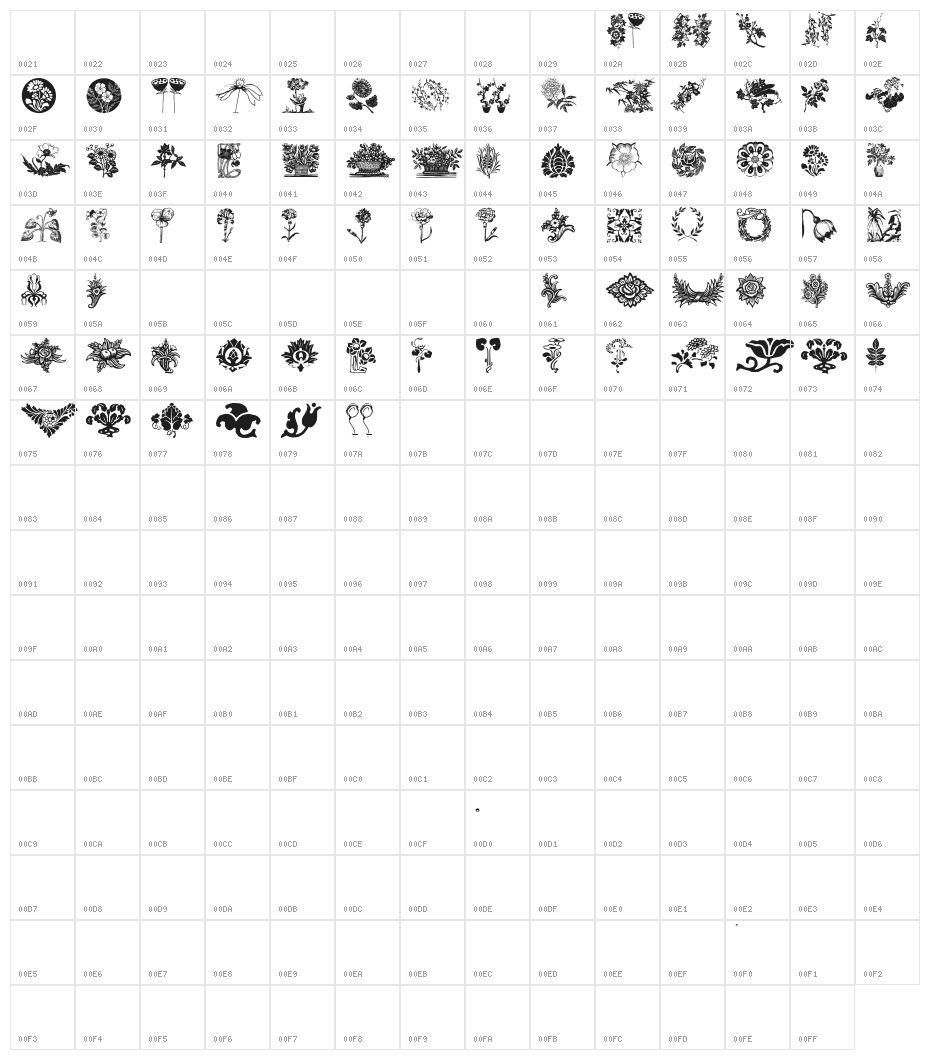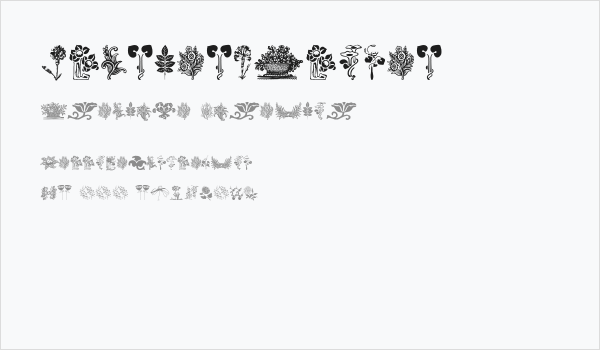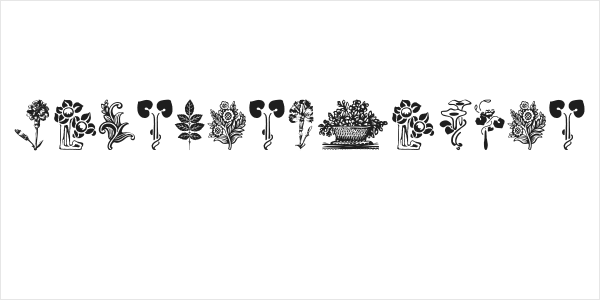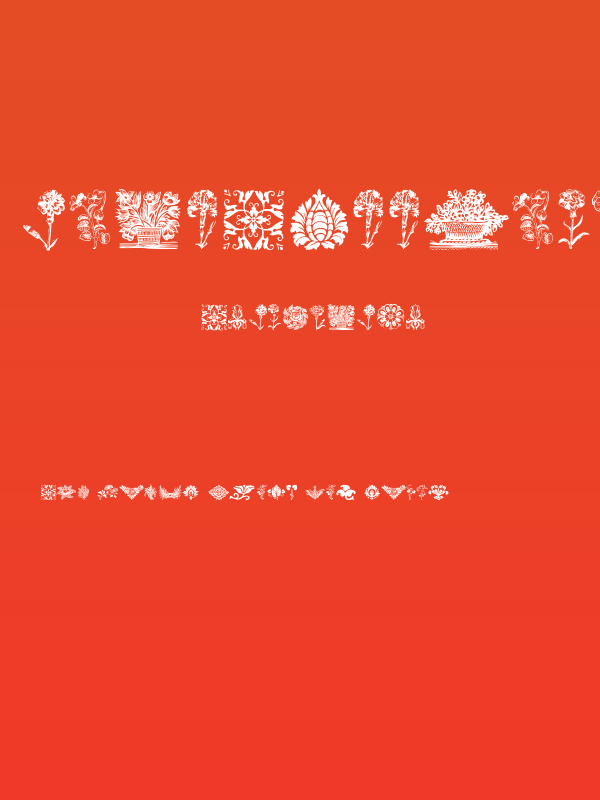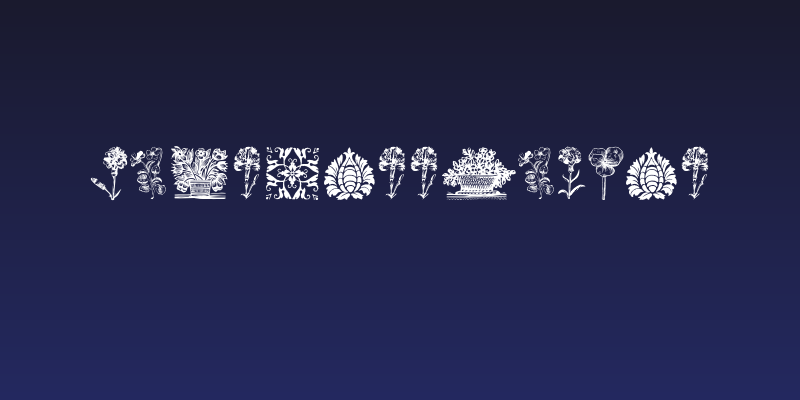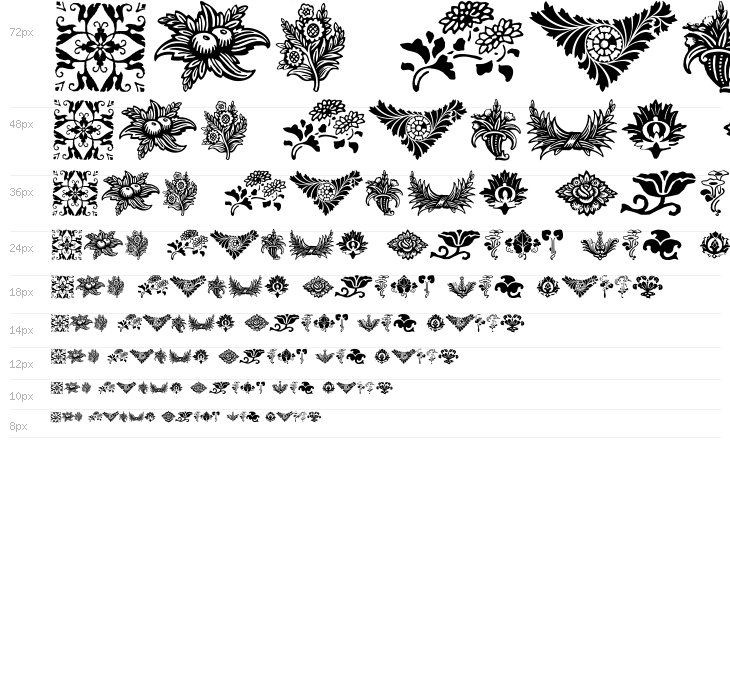
PlantenNBlomen Font
PlantenNBlomen Description
A decorative dingbat font featuring a wide variety of intricate floral and botanical illustrations, including potted plants, ornate flowers, leaves, and stylized nature motifs. Each glyph is a unique, detailed black-and-white silhouette, ideal for ornamental use rather than text.
| Overall Style | Decorative, Botanical, Vintage |
| Use Case | Ornamentation, Borders, Decorative accents |
| Proposed Projects | Wedding invitations, decorative borders, scrapbooking, greeting cards, botanical-themed branding, packaging, and ornamental dividers. |